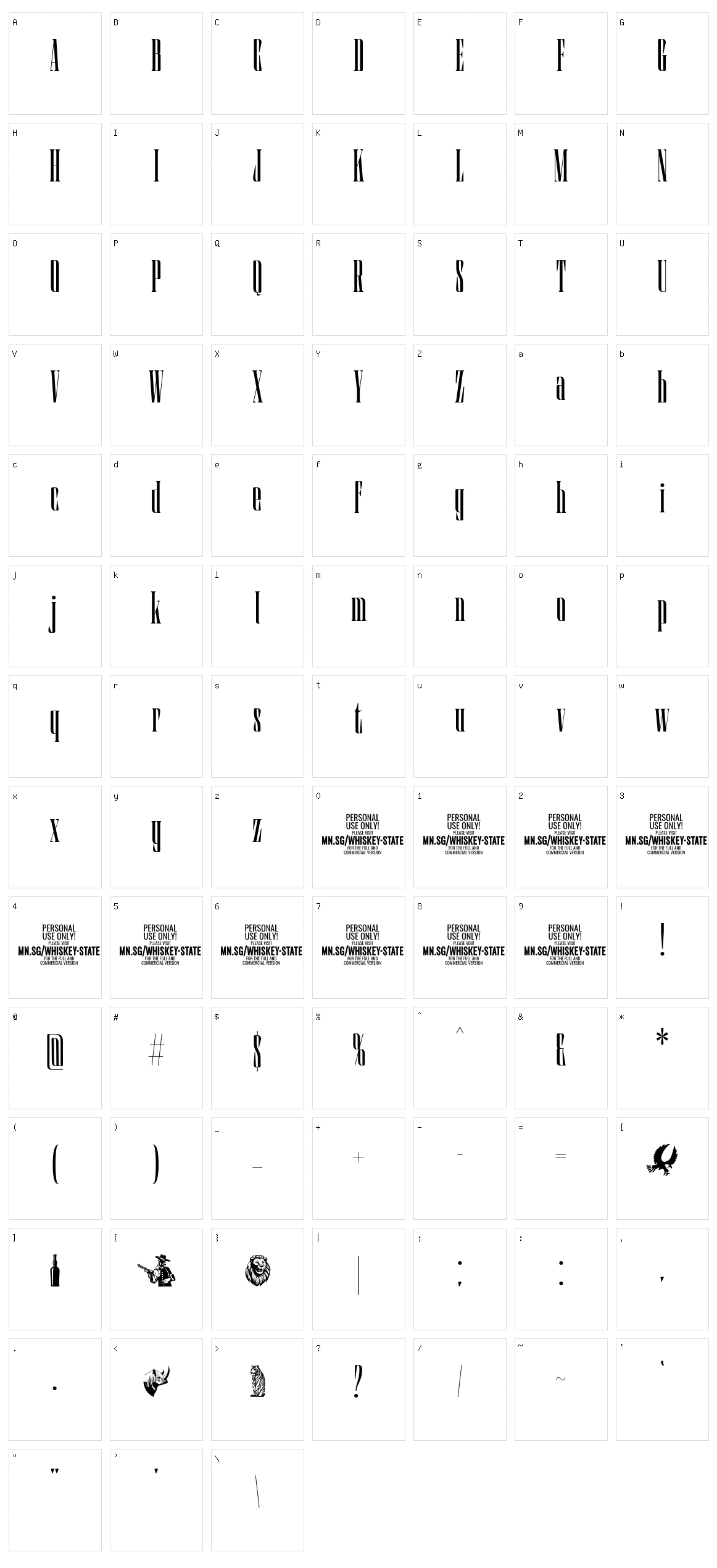
Whiskey State strides onto the canvas like a cowboy entering a saloon: Tall, confident, and impossible to ignore.
The font boasts an impressive height, stretching upwards with the same vigor as plumes of smoke rising from a smoldering campfire. Every letter stands upright and proud, imbued with the spirit of the Old West, yet exuding a contemporary coolness and innovativity.
Its serifs aren't just appendages; they are expressions, giving the typeface its unique, assertive character. The narrowness of Whiskey State is reminiscent of slender whisky bottles, and can tough and smoky while classy and elegant, just like the liquid from which it draws its name.
Use characters { } < > [ ] to make symbols such as lions, eagles and revolvers.
The font is built with advanced OpenType functionality and has a guaranteed top-notch quality, containing stylistic and contextual alternates, ligatures, and more features; all to give you full control and customizability. It has extensive lingual support, covering all Latin-based languages, from Northern Europe to South Africa, from America to South-East Asia. It contains all characters and symbols you'll ever need, including all punctuation and numbers.